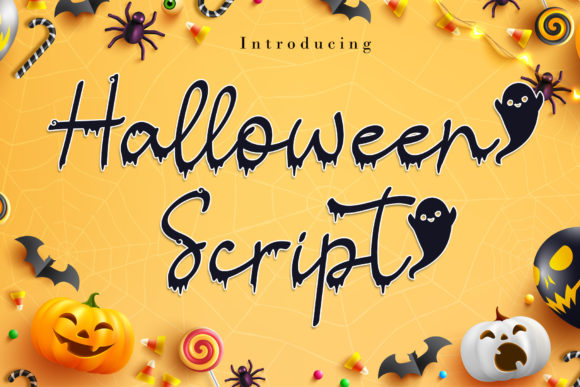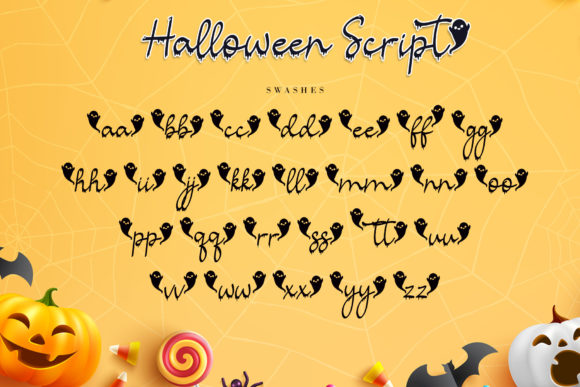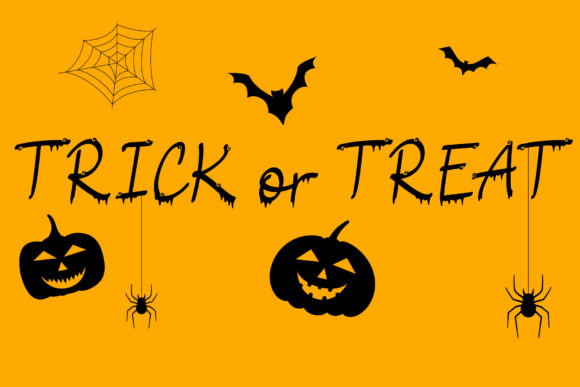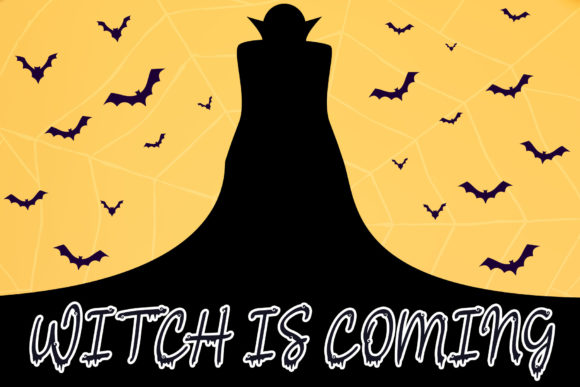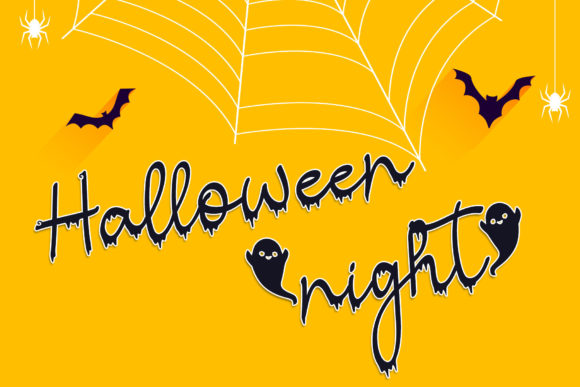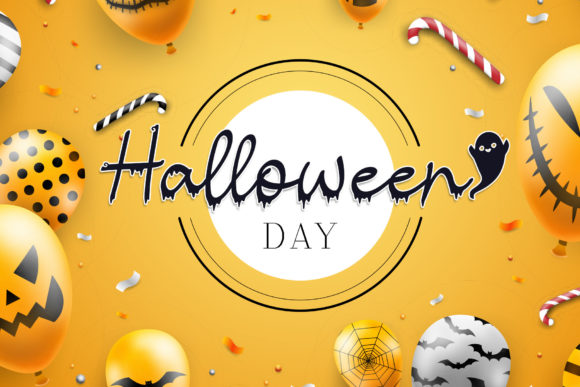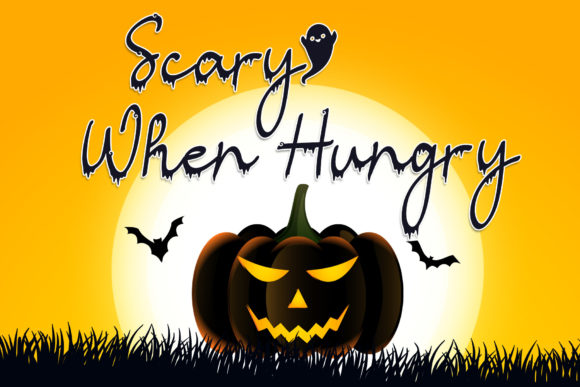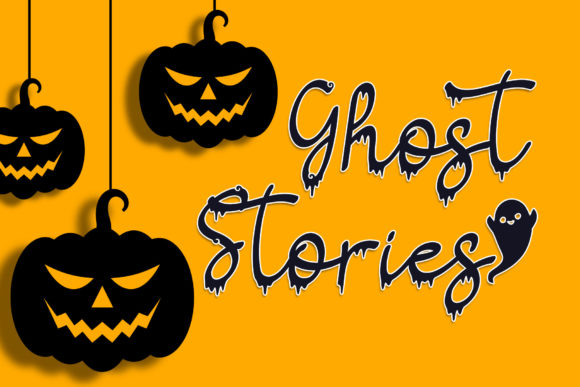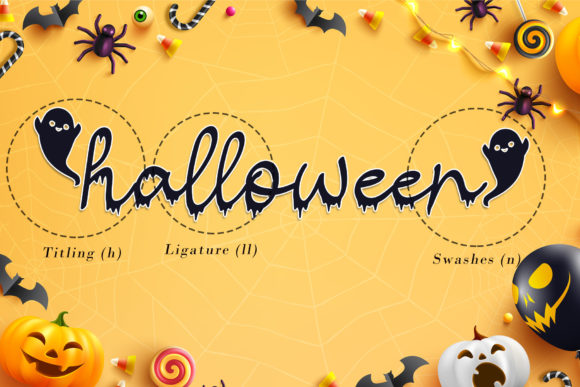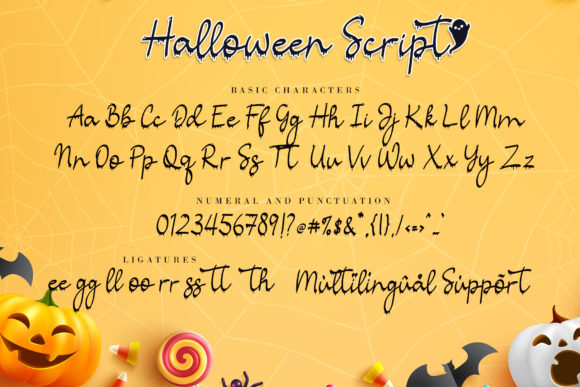
Halloween Script Font
About Halloween Script Font
Halloween Script is a cool and spooky handwritten font. It is perfectly suitable for any Halloween-related project or crafty idea! It is also PUA encoded which means you can access all of the glyphs and swashes with ease!